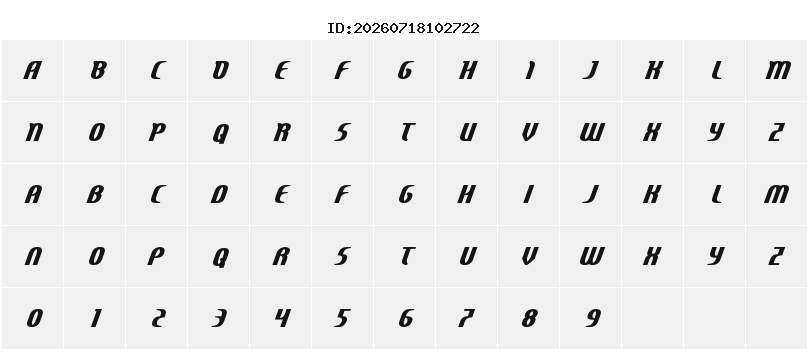
• Font Name: Centaurus Condensed
• Font Style: Condensed
• Full Font Name: Centaurus Condensed
About Centaurus Condensed.ttf
Centaurus Condensed.ttf is a modern, elegant sans-serif font designed for ultimate readability and visual harmony. Perfect for branding, headlines, web design, and print materials.